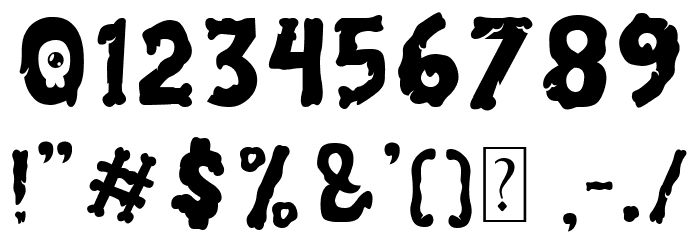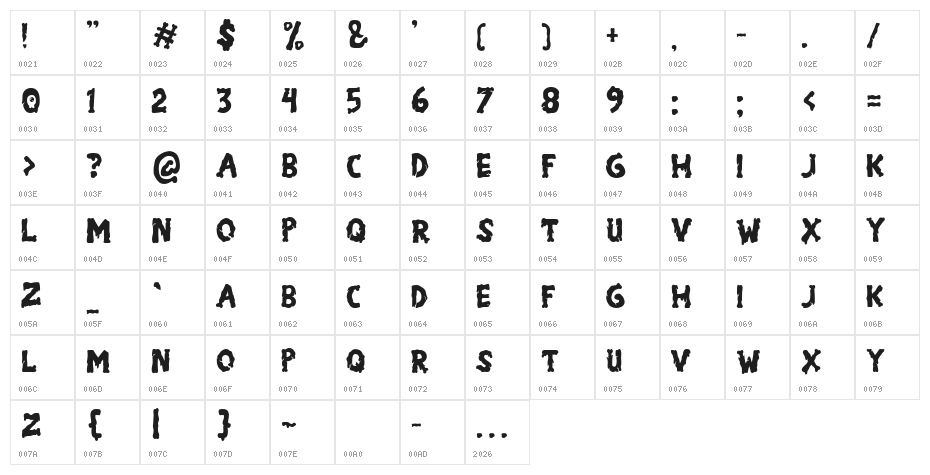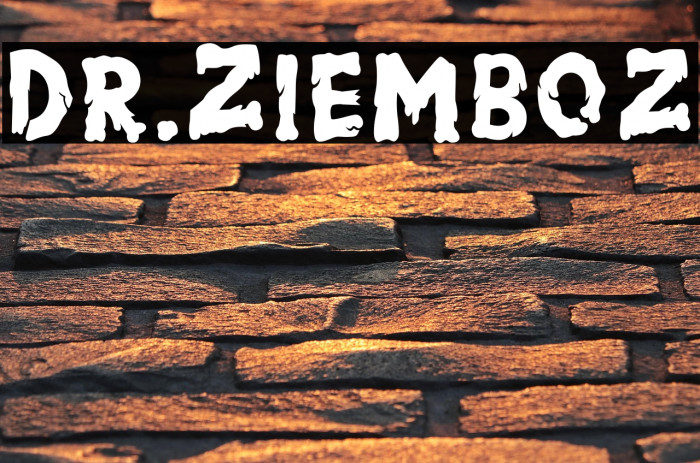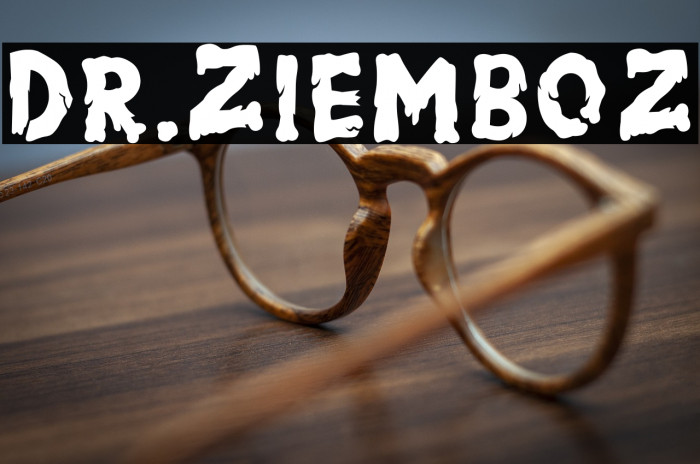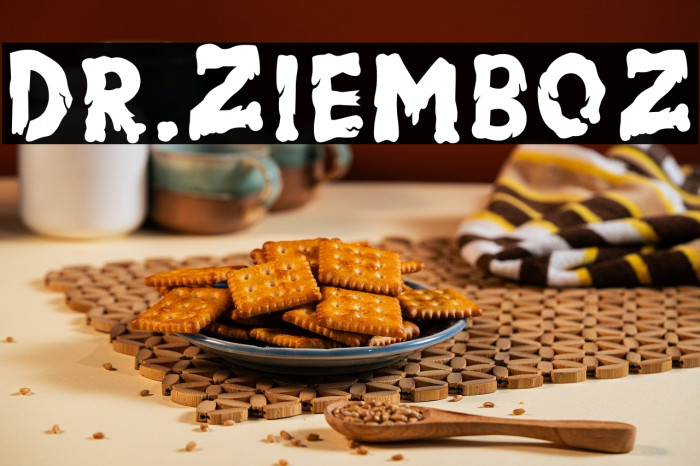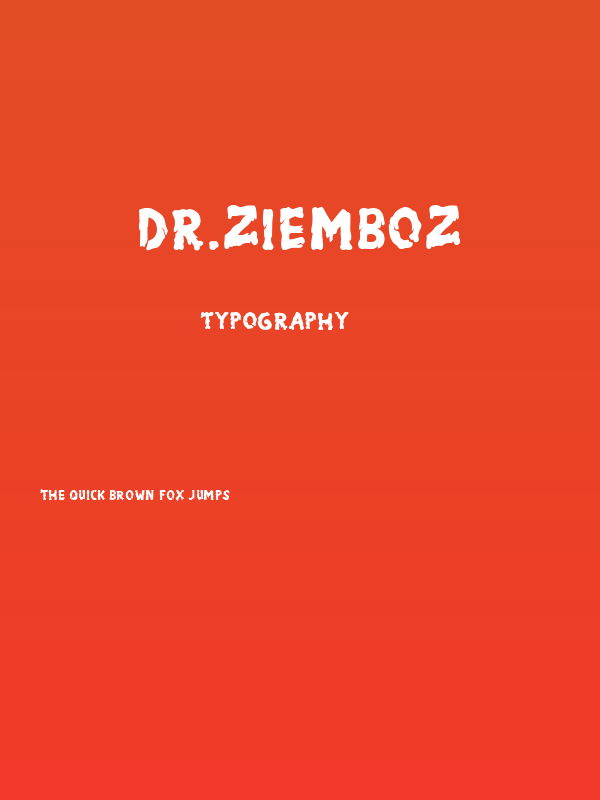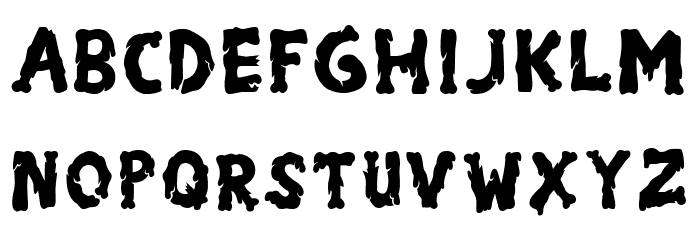
Dr.Ziemboz Font
Dr.Ziemboz Description
This font features a bold and playful design with irregular, organic shapes that give it a unique, artistic flair. The characters are heavily stylized, with uneven edges and varying stroke thicknesses that create a dynamic and eye-catching appearance. The font's whimsical nature makes it stand out, with each letter appearing as if it has been hand-drawn with a brush or marker. The overall look is both bold and informal, making it suitable for creative and unconventional projects. The numbers and special characters maintain the same playful style, ensuring consistency throughout the font set.
| Proposed Projects | Ideal for creative projects such as posters, album covers, children's books, and artistic branding. |